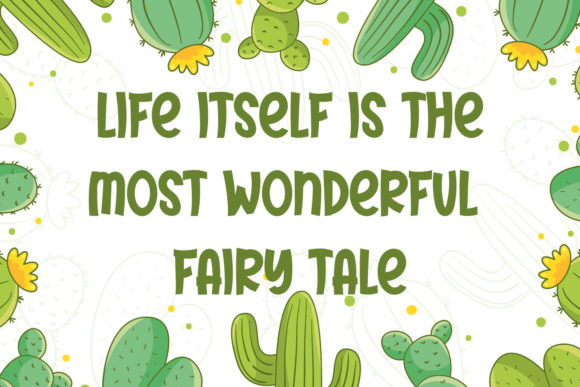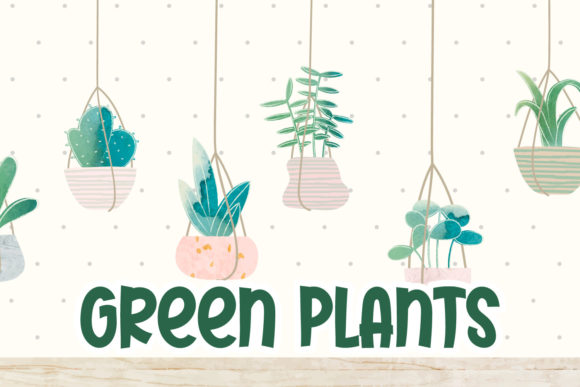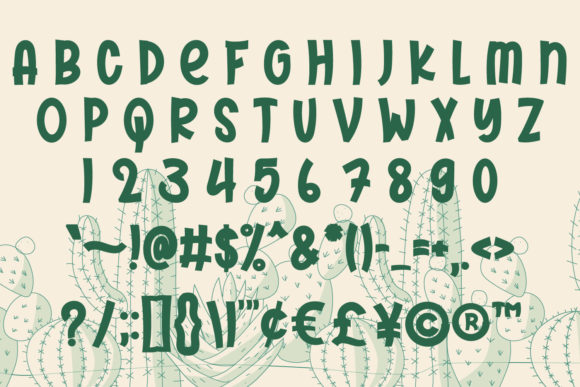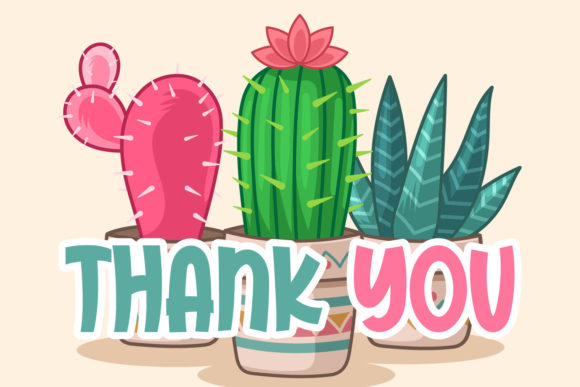
Cactus Floral Font: Add a Touch of Whimsy to Your Designs
Are you looking for a font that can add a dash of fun and personality to your designs? Look no further than Cactus Floral, a thick lettered display font that’s perfect for delivering messages with confidence, authenticity, and charm. In this article, we’ll explore the features and benefits of Cactus Floral, and show you how to use it to take your designs to the next level.
What is Cactus Floral Font?
Cactus Floral is a unique and eye-catching font that’s designed to add a touch of whimsy to your designs. With its thick, bold letters and floral-inspired details, this font is perfect for creating eye-catching headlines, titles, and captions. Whether you’re working on a cartoon, magazine cover, game, or any other project that requires a jolly touch, Cactus Floral is the perfect choice.
Key Features of Cactus Floral Font
- Fun and playful design: Cactus Floral is designed to be fun and playful, making it perfect for projects that require a lighthearted touch.
- Thick lettered display font: The font features thick, bold letters that are perfect for creating eye-catching headlines and titles.
- Floral-inspired details: The font includes floral-inspired details that add a touch of elegance and sophistication to your designs.
- Highly versatile: Cactus Floral can be used for a wide range of projects, from cartoons and magazine covers to games and more.
Benefits of Using Cactus Floral Font
So why should you choose Cactus Floral for your next design project? Here are just a few benefits of using this amazing font:
- Adds personality to your designs: Cactus Floral is a unique and eye-catching font that can help you add personality and style to your designs.
- Perfect for creative projects: If you’re working on a creative project that requires a fun and playful touch, Cactus Floral is the perfect choice.
- Easy to read: Despite its bold and playful design, Cactus Floral is easy to read, making it perfect for use in headlines, titles, and captions.
- Great for branding: Cactus Floral can be used to create a consistent brand identity that’s fun, playful, and eye-catching.
How to Use Cactus Floral Font
Using Cactus Floral is easy! Here are a few tips to get you started:
- Pair it with a simple font: For best results, pair Cactus Floral with a simple font that’s easy to read.
- Use it for headlines and titles: Cactus Floral is perfect for use in headlines and titles, where its bold and playful design can really shine.
- Experiment with colors: Cactus Floral looks great in a wide range of colors, so don’t be afraid to experiment and find the perfect color for your design.
- Have fun with it!: The most important thing is to have fun with Cactus Floral and use it to add a touch of personality to your designs.
Cactus Floral Font in Action
So what does Cactus Floral look like in action? Here are a few examples of how this amazing font can be used:
- Cartoon titles: Cactus Floral is perfect for use in cartoon titles, where its bold and playful design can really shine.
- Magazine covers: The font is also great for use in magazine covers, where its eye-catching design can help grab the reader’s attention.
- Game titles: Cactus Floral can be used to create eye-catching game titles that really stand out.
- Crafting projects: The font is also perfect for use in crafting projects, such as scrapbooking and card making.
In conclusion, Cactus Floral is a fun and thick lettered display font that’s perfect for adding a touch of whimsy to your designs. With its bold and playful design, floral-inspired details, and high versatility, this font is perfect for a wide range of projects, from cartoons and magazine covers to games and crafting projects. So why not give Cactus Floral a try and see how it can help take your designs to the next level?